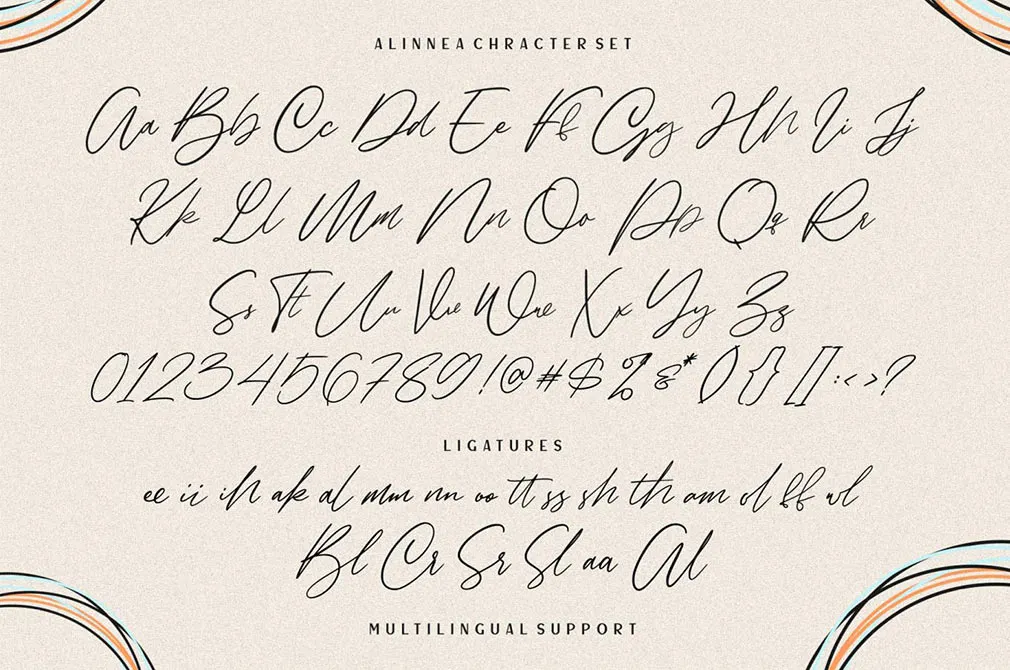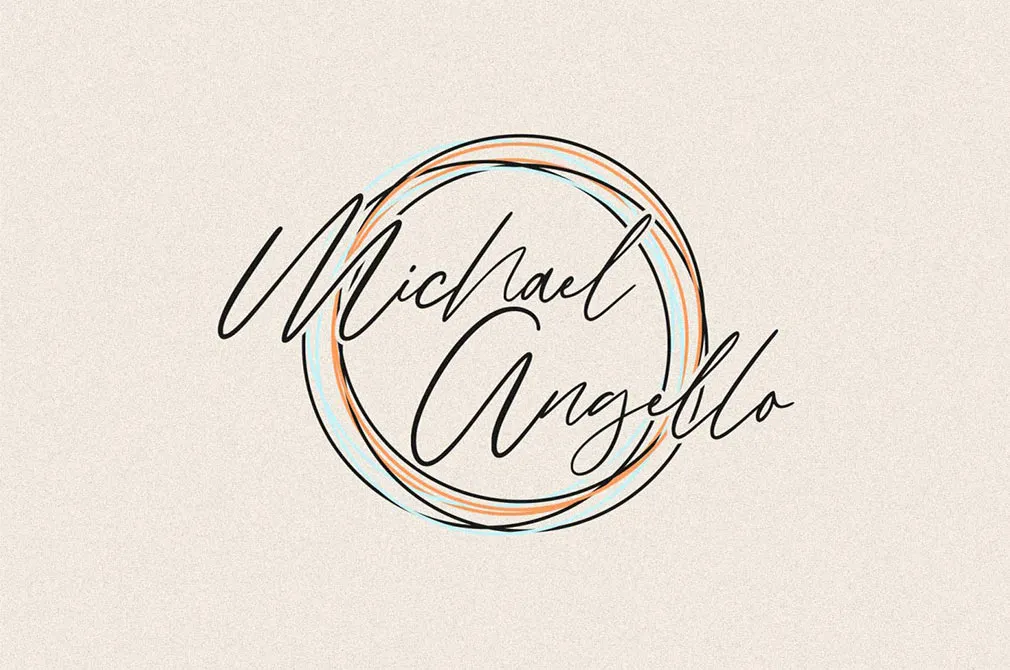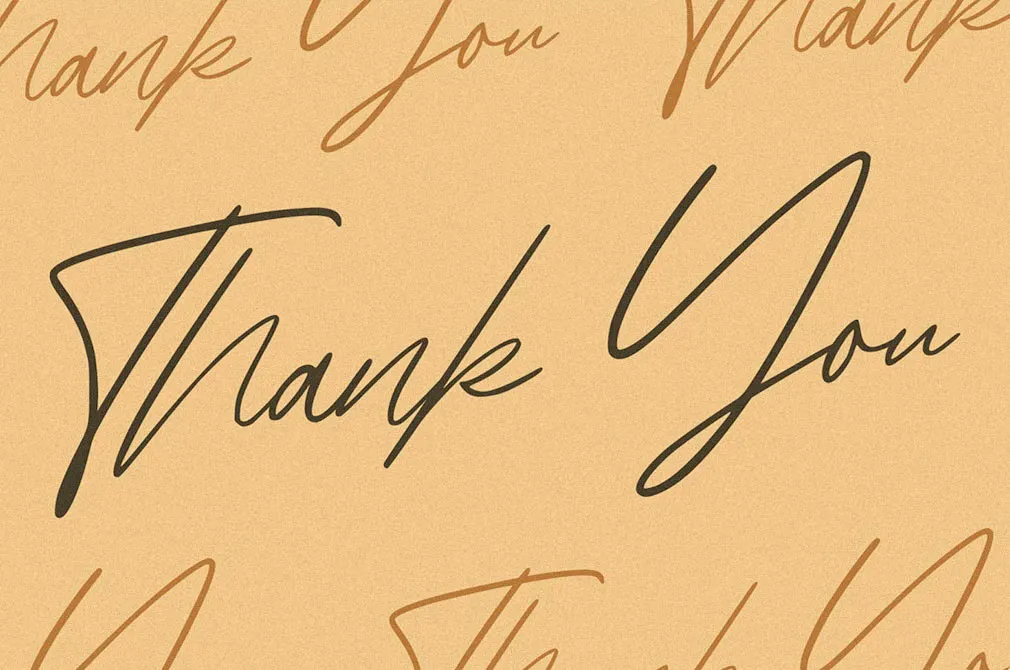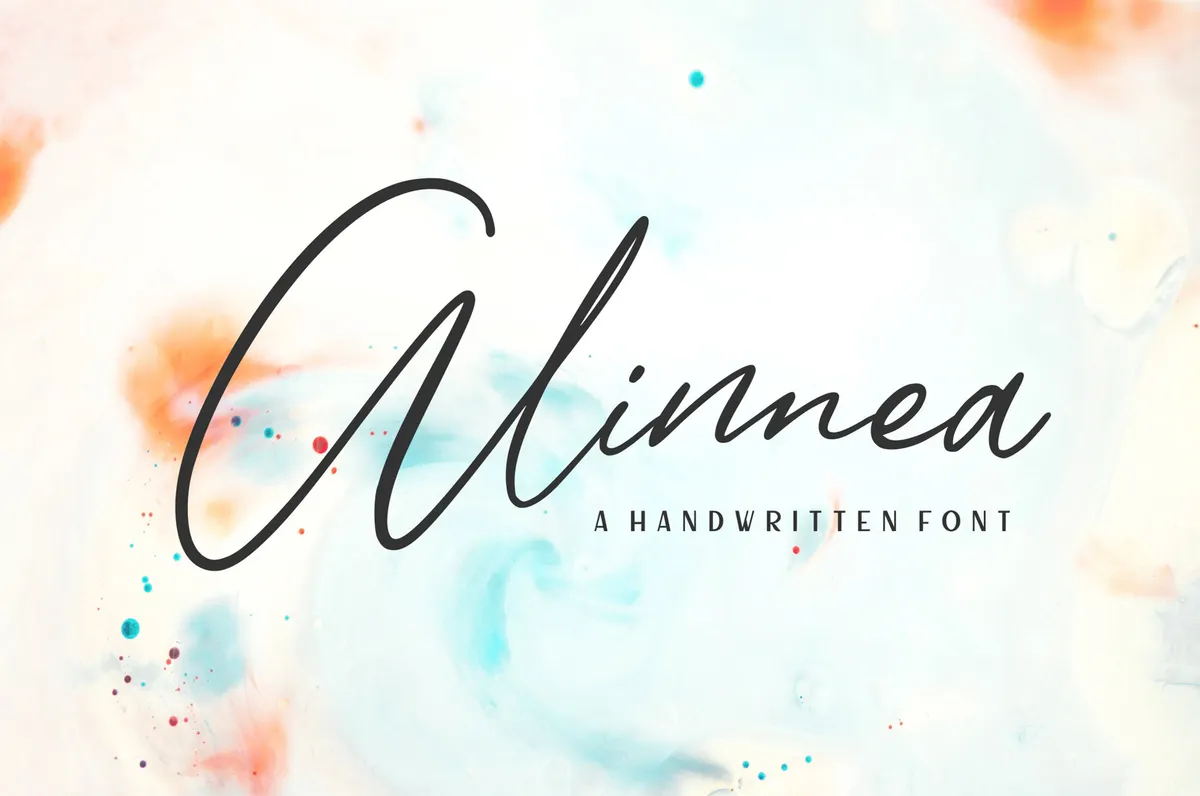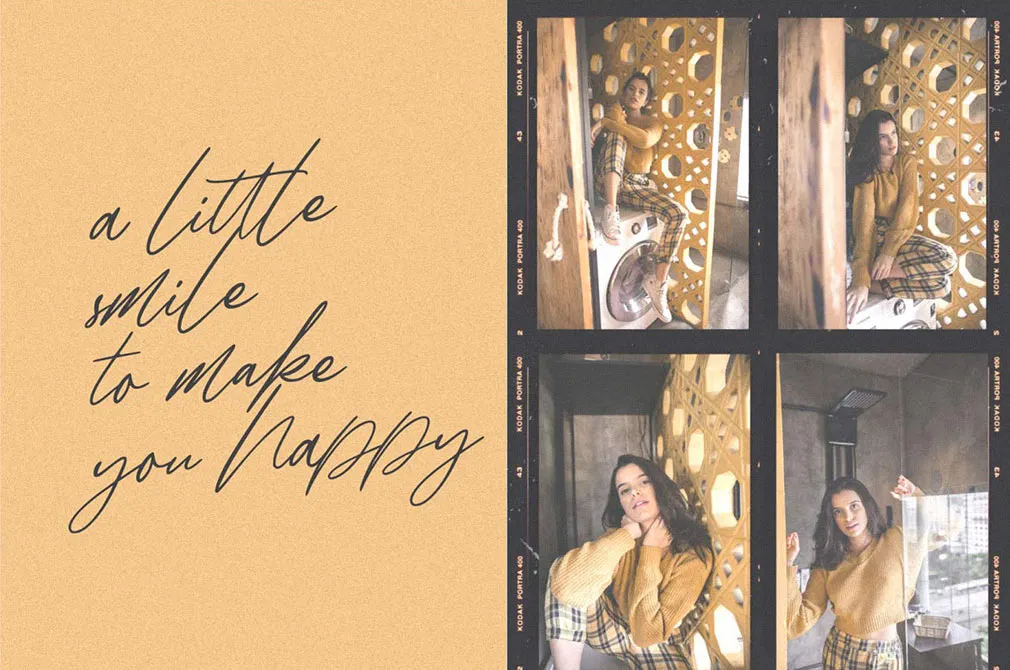
Alinnea Handwritten Font
The personal touch in every curve and neverending feeling of uniqueness these are the things you get when speaking of this script font. What's up to you is its right implementation!
Alinnea is a natural signature font, meant to become a part of your logo, invitation, stationery, wedding designs, social media posts, advertisements, product packaging, photography, or anything. The script comes with a full set of uppercase and lowercase letters, multilingual symbols, numerals, punctuation. In other words, it's completely ready for being used in your ptojects!